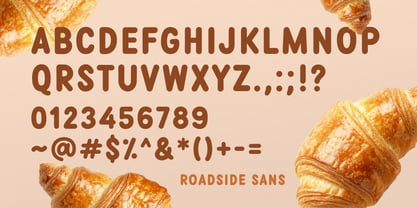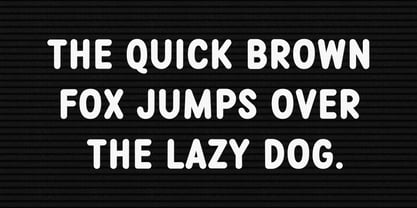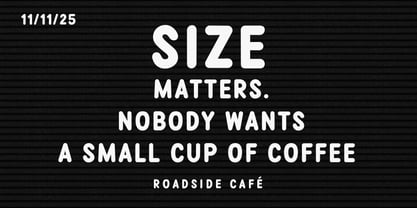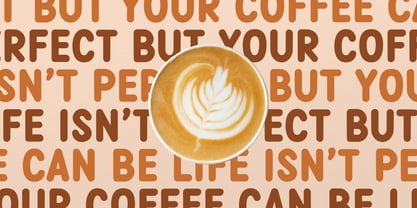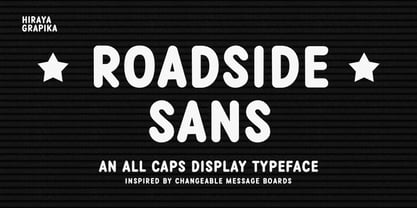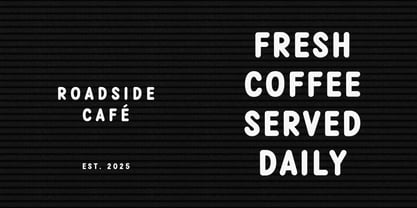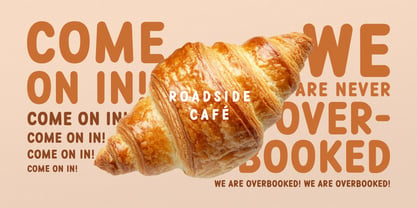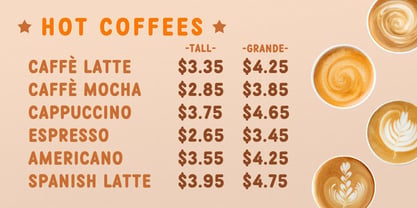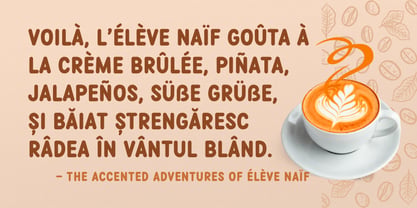
Roadside Sans
Die Schriftfamilie Roadside Sans wurde von Emmanuel Ludovice entworfen und von Hiraya Grapika veröffentlicht. Roadside Sans enthält 1 Stile. Mehr über diese Familie
Roadside Sans is a rounded, semi-condensed, all-caps display typeface inspired by the bold letters of retro changeable sign boards. Rooted in the charm of mid-century roadside culture, it captures the friendly confidence of lettering that announce daily specials, welcome guests, or catch the eyes of passerby. Its clean geometry, softened edges, and subtle hand-drawn feel bring a balance of utility and warmth, making it as approachable as it is attention-grabbing. Designed for clarity, impact, and character, Roadside Sans shines in logos, packaging, posters, menus, and signage that call for a touch of retro authenticity. Perfect for crafting a nostalgic identity or a modern design with vintage flair.
Designer: Emmanuel Ludovice
Foundry: Hiraya Grapika
Hiraya Grapika is an independent type foundry based in the Philippines by designer Emmanuel Ludovice. Hiraya is an old Filipino word meaning "the fruit of one’s hopes, dreams, and imagination," which captures the spirit of creativity driven by purpose. Focused on crafting unique display typefaces, it aims to design fonts that stand out through character and intent while staying grounded in the core principles of type design: legibility, function, and meaning. Connect with @hirayagrapika on Instagram.